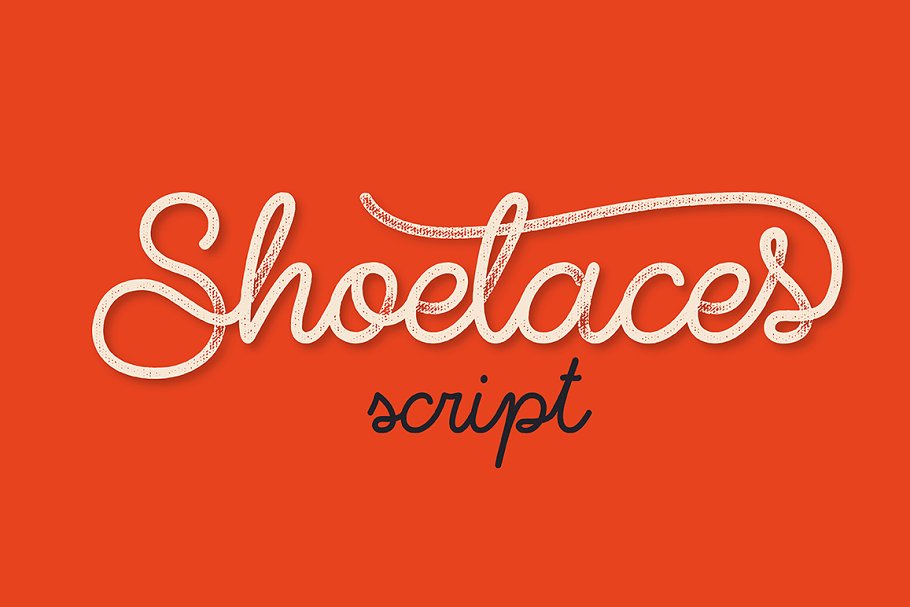
Are you looking for the perfect script font to elevate your resume design? Look no further than Shoelaces font, created by renowned designer Gleb Guralnyk. This font boasts a unique textured effect that adds depth and character to your letters, and it also includes a clean version for a more polished look.
But that's not all - Shoelaces also features OpenType ligatures and alternates, allowing you to customize your lettering and make it truly stand out. Plus, with 8 swashes to choose from, your designs will be both eye-catching and professional.
In addition to the textured and clean font files, Shoelaces also comes with a Vector EPS v.10 file containing all characters for easy customization. And with a Latin character set, this font is versatile and perfect for a variety of design projects.